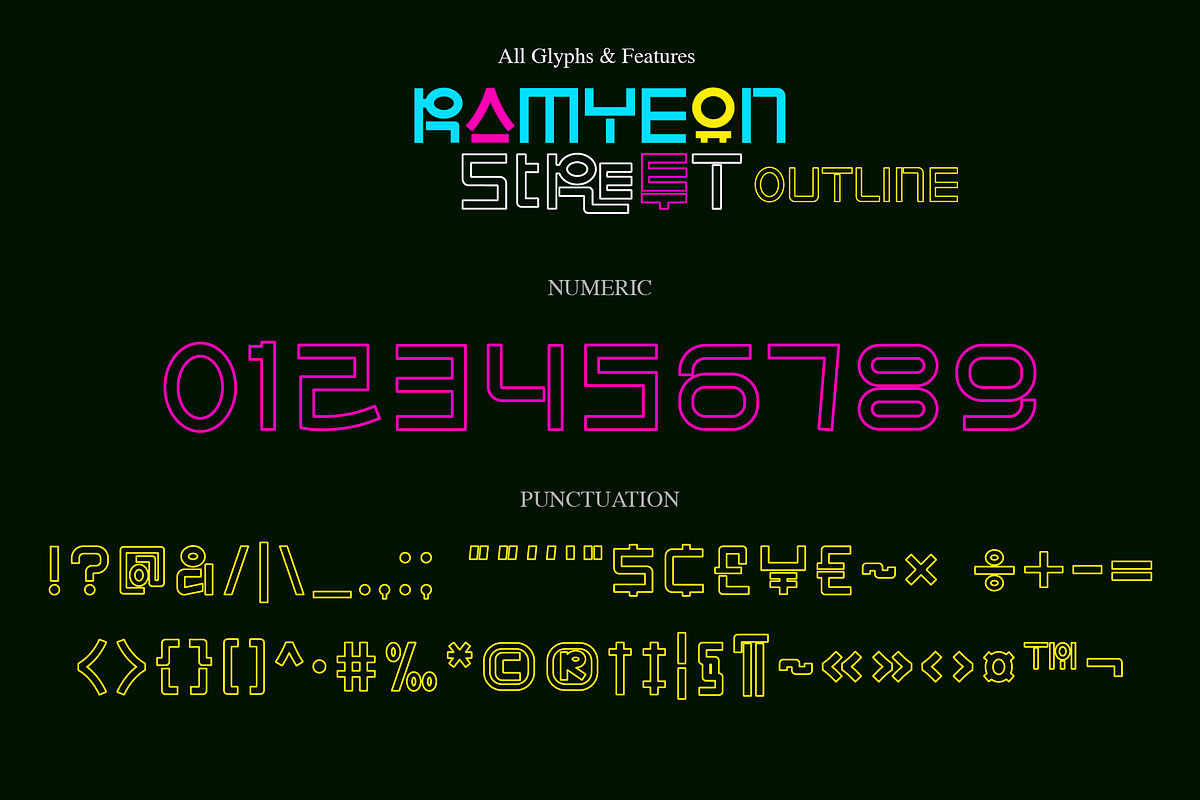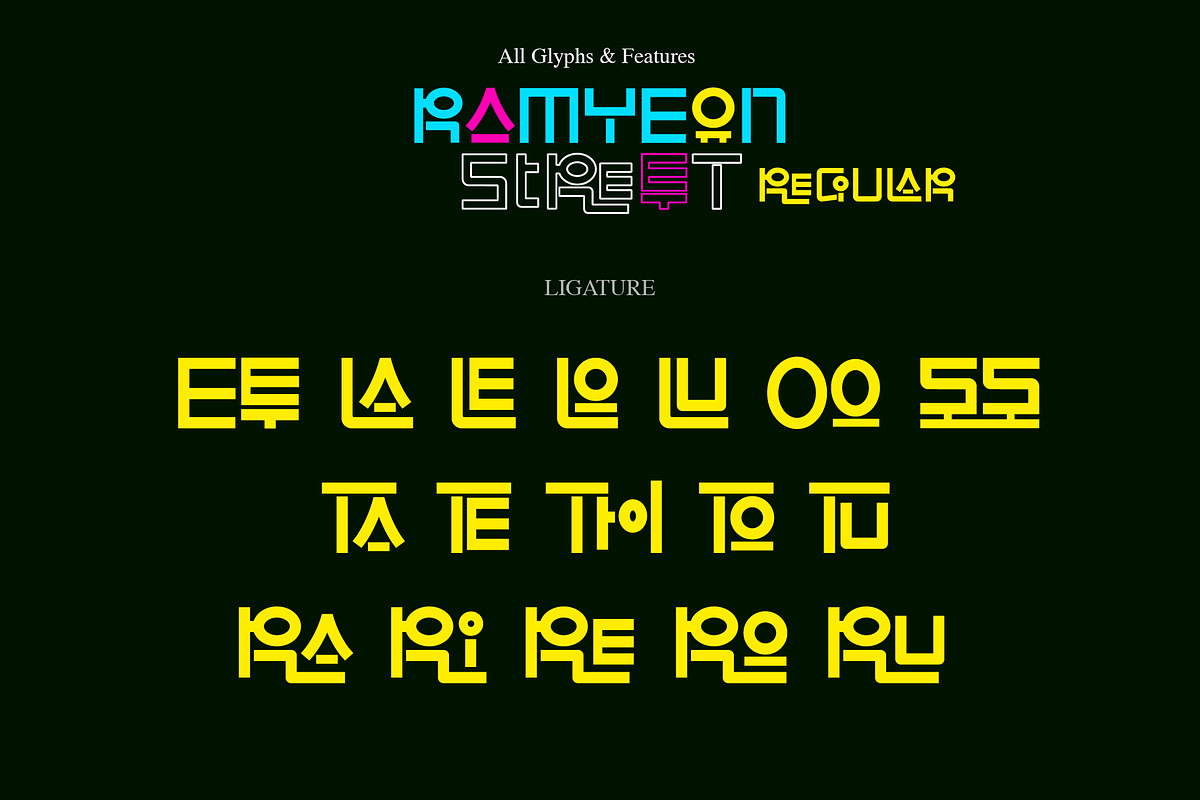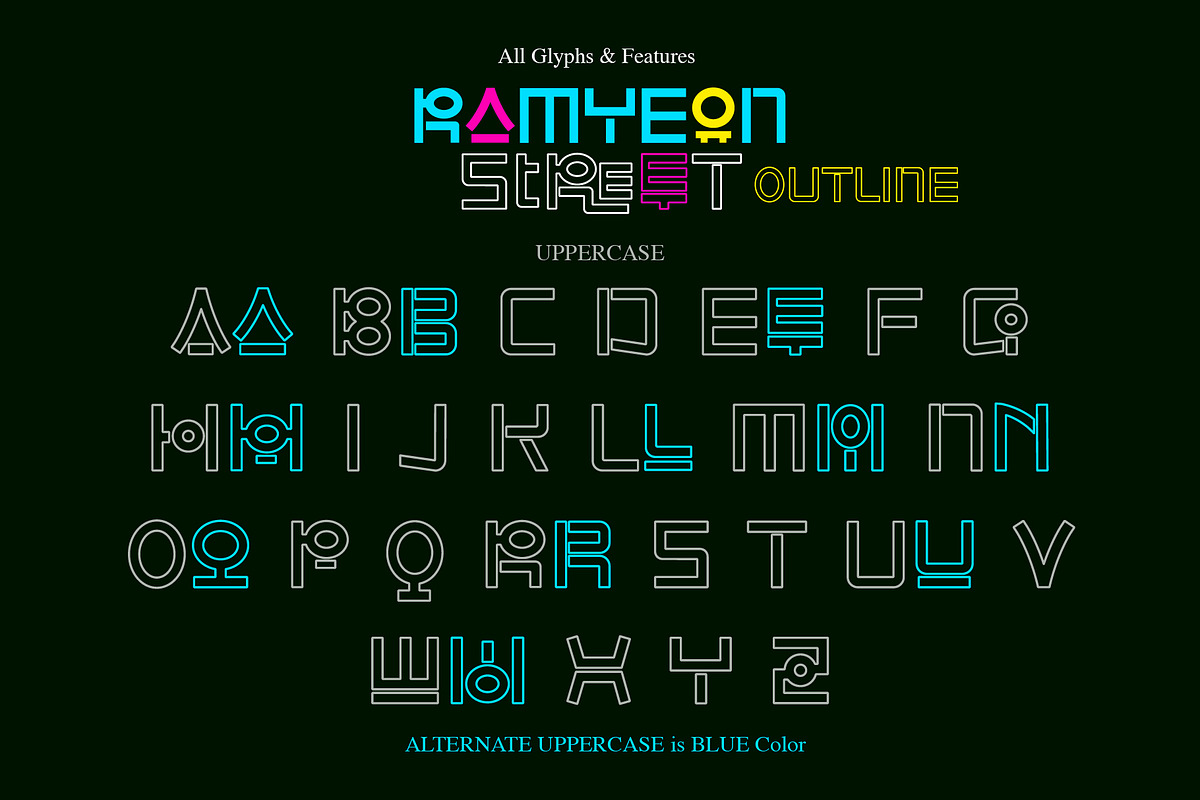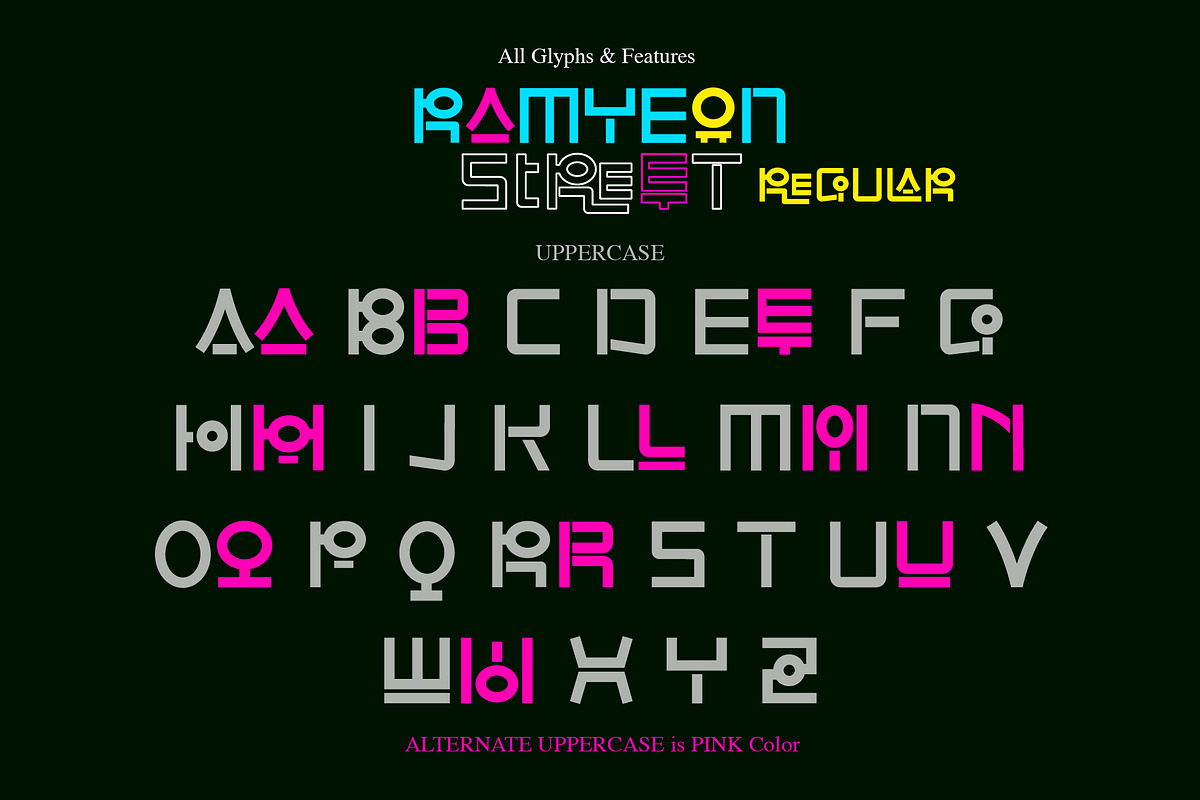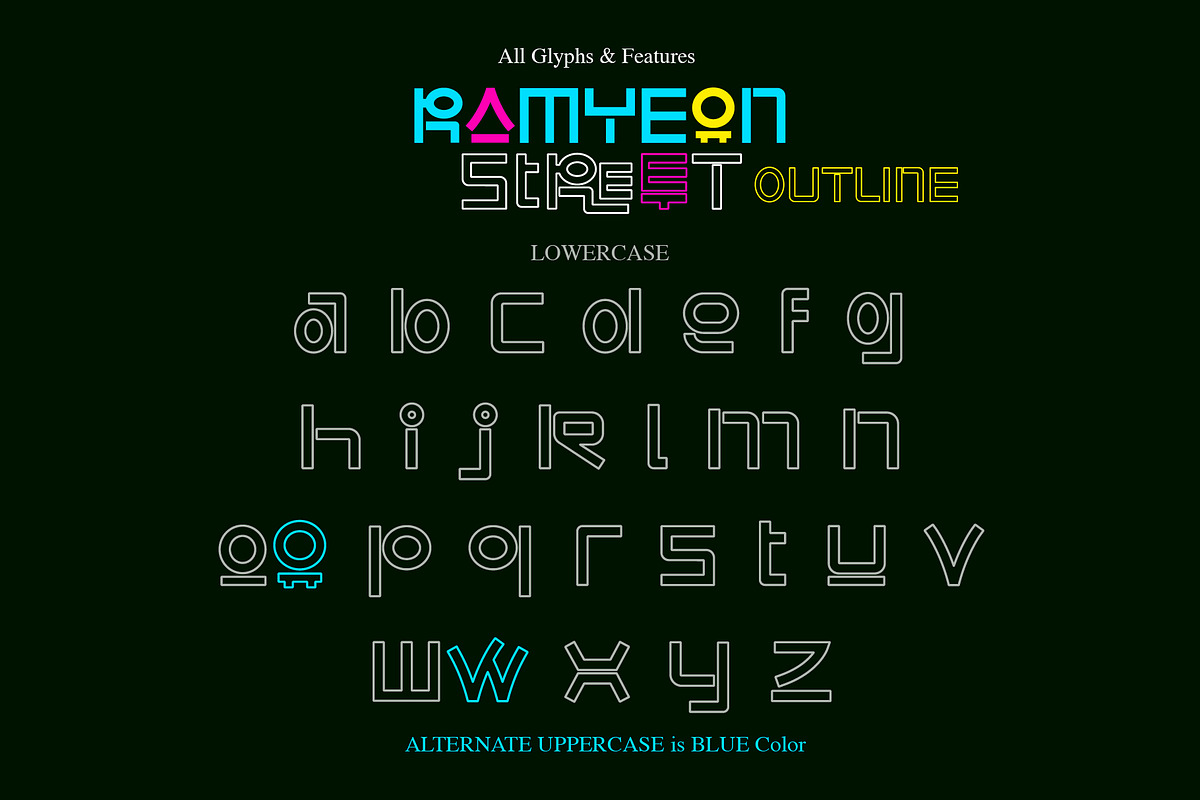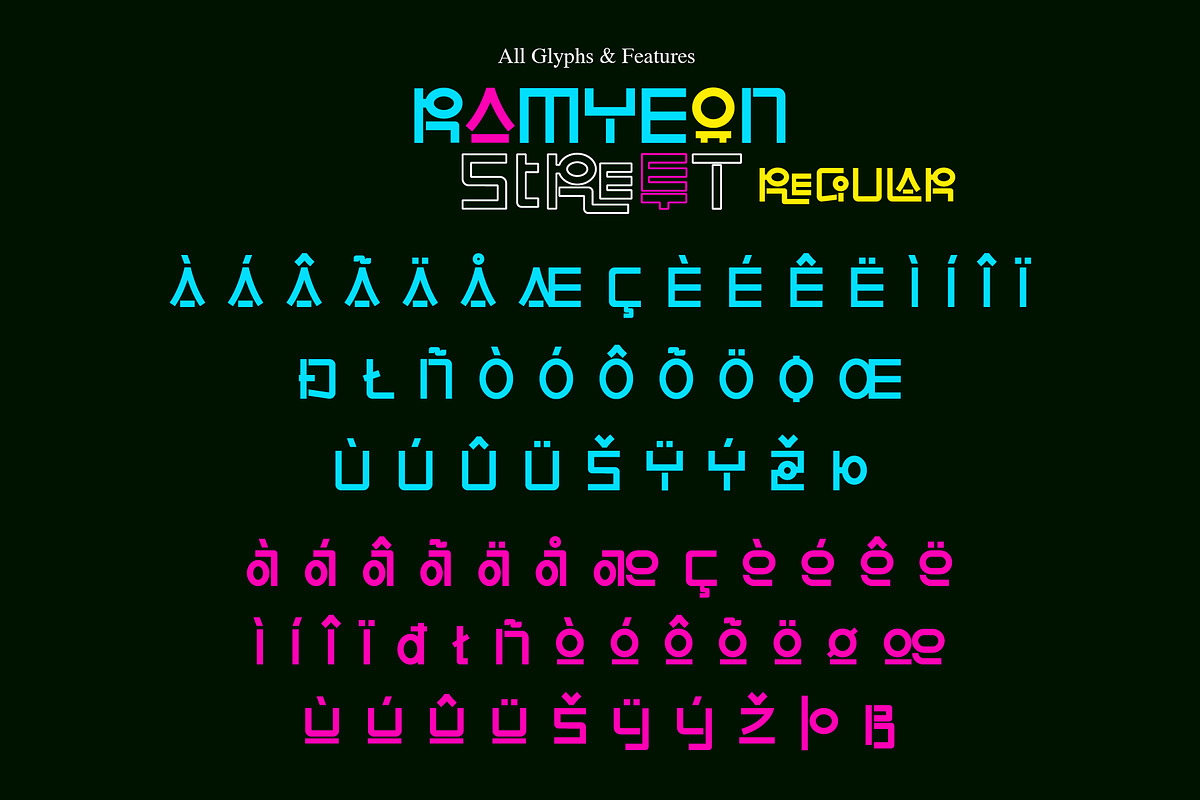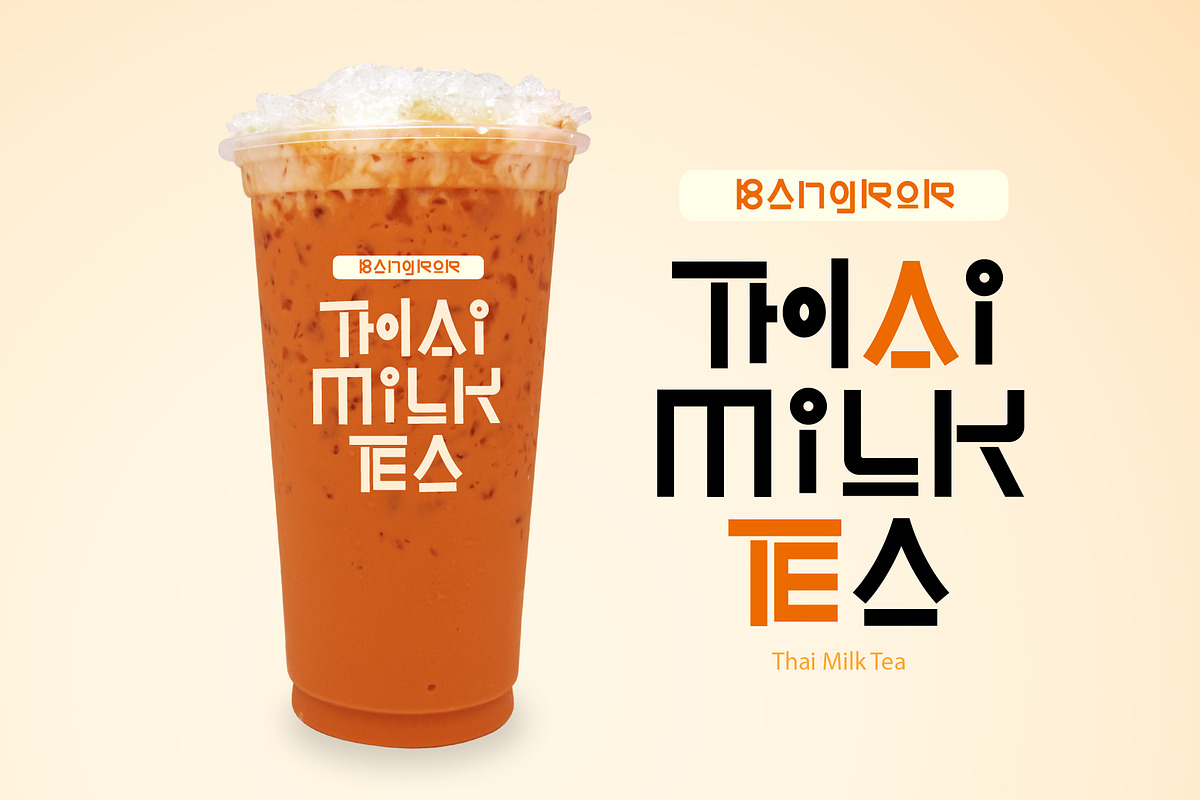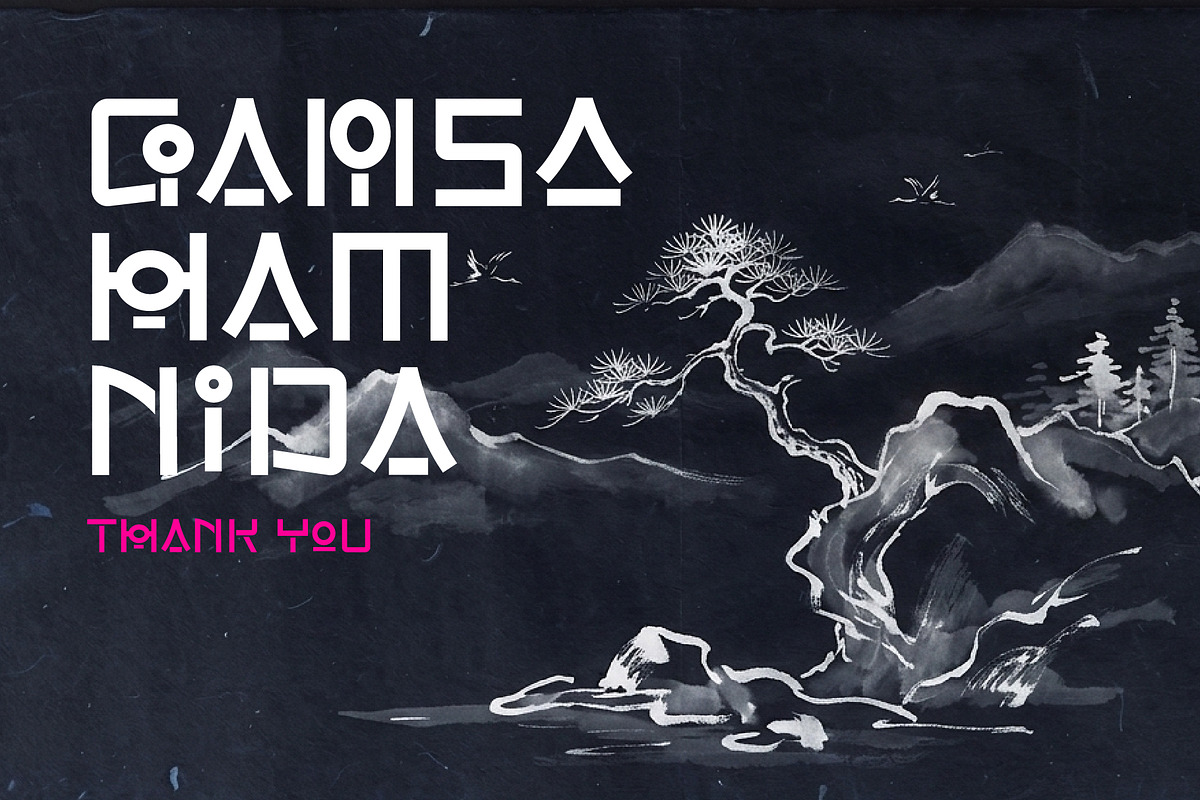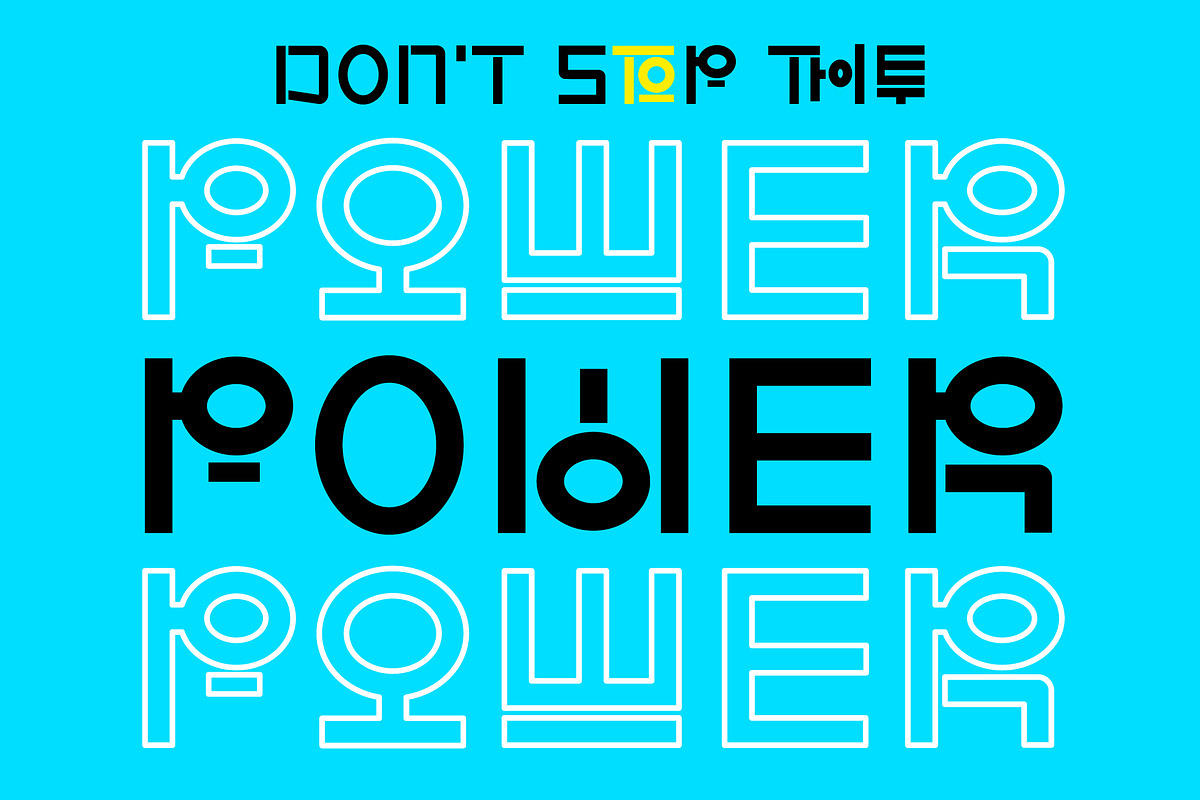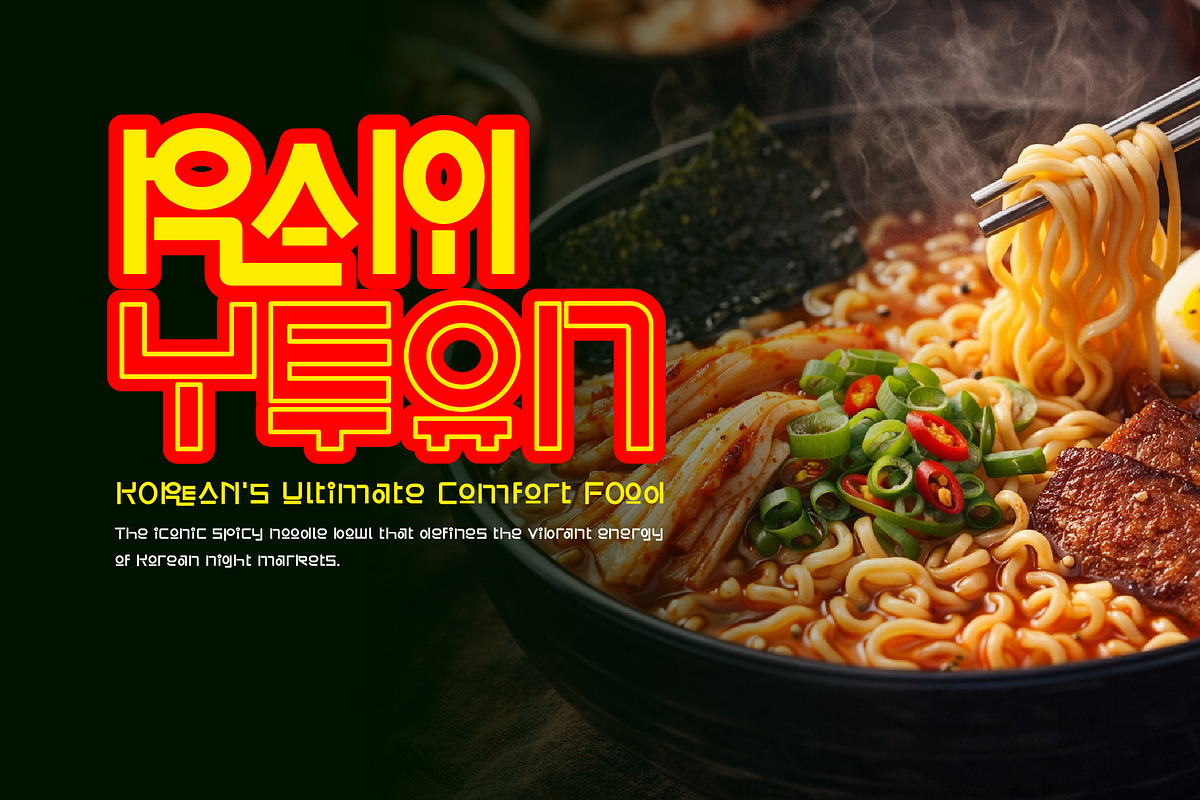
Ramyeon Street
Ramyeon Street is a bold Korean-inspired display font with a modern neon street vibe. Inspired by Seoul night markets, ramen shops, K-culture aesthetics, and urban signage, this font brings a vibrant and energetic personality to your designs. With its unique geometric shapes and Korean-style visual influence, Ramyeon Street is perfect for creating eye-catching titles, branding, posters, food packaging, streetwear designs, restaurant logos, and modern pop culture graphics. This font blends futuristic structure with playful street energy, making it ideal for designers who want a bold and trendy look inspired by Korean nightlife and street culture.
Perfect for: • Korean restaurant branding • Ramen shop logos • Street food packaging • K-pop inspired designs • Posters and headlines • Neon signage • Social media graphics • Packaging design • Modern display typography
Font Features • Uppercase & Lowercase Characters • Numbers & Punctuation • Multilingual Support • Stylistic Korean-inspired forms • Modern Display Style